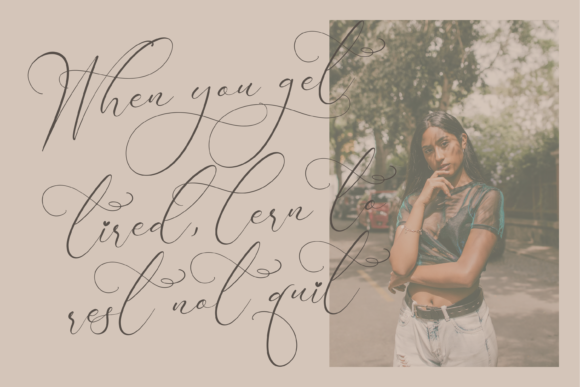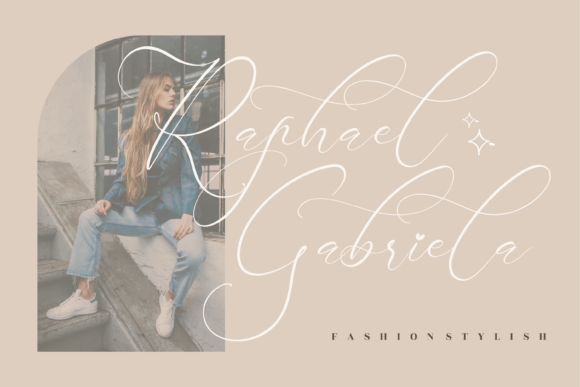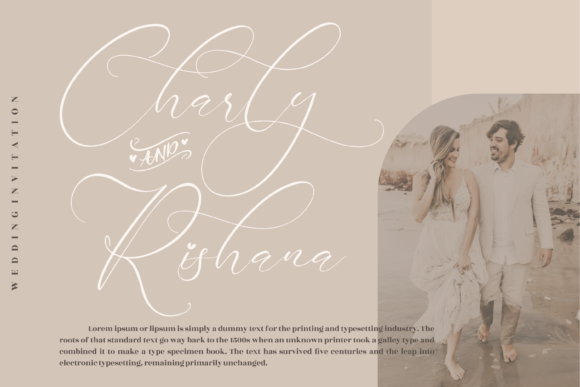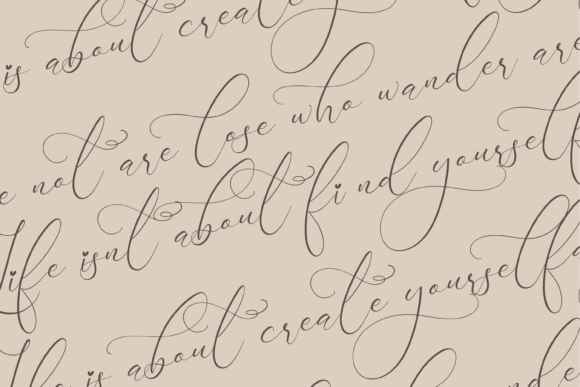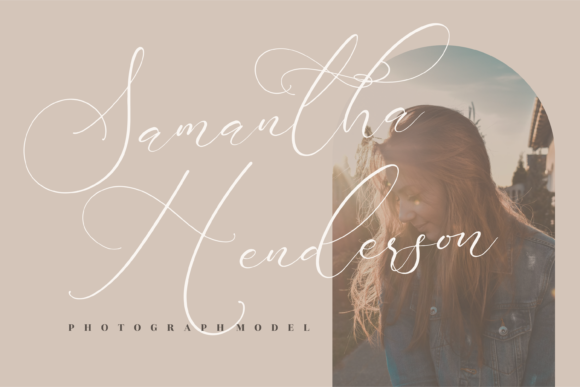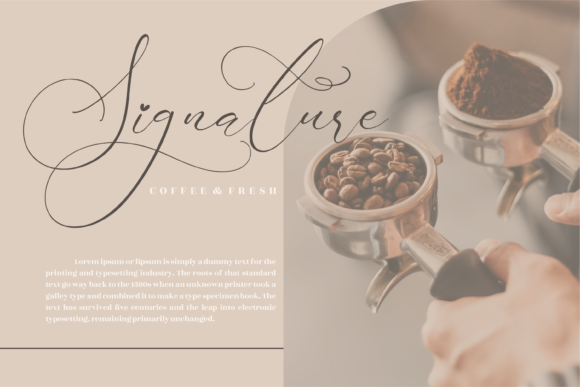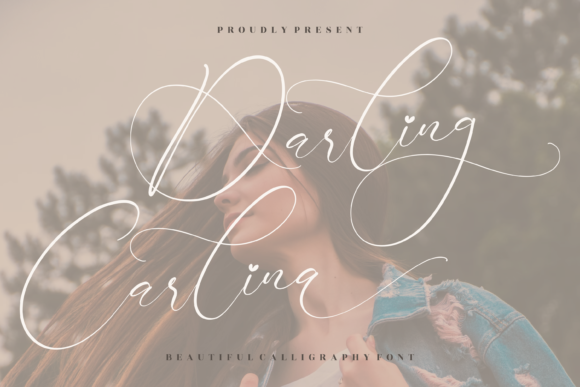
Introducing Darling Carlina Font: Elevate Your Designs with Elegant Calligraphy
Are you a designer or crafter looking for a beautiful and versatile font to elevate your projects? Look no further than Darling Carlina Font. This stunning calligraphy font is perfect for a wide range of applications, from logos and branding projects to homeware designs, product packaging, and more.
What is Darling Carlina Font?
Darling Carlina Font is a gorgeous calligraphy font that exudes elegance and sophistication. Its beautiful, flowing script is perfect for adding a touch of luxury to any project. Whether you’re working on a logo, a poster, or a product design, Darling Carlina Font is sure to make your work stand out.
What Can I Use Darling Carlina Font For?
Darling Carlina Font is incredibly versatile and can be used for a wide range of projects, including:
• Logos and branding projects: Create a lasting impression with a beautiful, custom logo that showcases your brand’s personality.
• Homeware designs: Add a touch of elegance to your home decor with Darling Carlina Font on throw pillows, wall art, and more.
• Product packaging: Make your products stand out on store shelves with eye-catching packaging that features Darling Carlina Font.
• Mugs and ceramics: Create personalized gifts or add a touch of whimsy to your everyday items.
• Quotes and posters: Make a statement with beautifully designed quotes and posters that showcase Darling Carlina Font.
• Shopping bags and t-shirts: Add a touch of style to your merchandise with Darling Carlina Font.
• Book covers and name cards: Create stunning book covers and name cards that showcase your attention to detail.
• Invitation cards and greeting cards: Make your invitations and greeting cards extra special with Darling Carlina Font.
• Labels and photography: Add a touch of elegance to your labels and photography with Darling Carlina Font.
• Watermark and special events: Use Darling Carlina Font to add a touch of sophistication to your watermarks and special event materials.
Why Choose Darling Carlina Font?
So why choose Darling Carlina Font for your next project? Here are just a few reasons:
• Elegant and sophisticated: Darling Carlina Font is the perfect choice for designers and crafters who want to add a touch of luxury to their work.
• Versatile: Darling Carlina Font can be used for a wide range of projects, from logos and branding projects to homeware designs and product packaging.
• High-quality: Darling Carlina Font is a high-quality font that is designed to produce stunning results.
Tips for Using Darling Carlina Font
Here are a few tips for using Darling Carlina Font in your projects:
• Pair with a sans-serif font: Pair Darling Carlina Font with a sans-serif font for a beautiful contrast that adds visual interest to your design.
• Use for headlines and titles: Darling Carlina Font is perfect for headlines and titles, where its elegant script can really shine.
• Experiment with colors: Darling Carlina Font looks stunning in a variety of colors, so don’t be afraid to experiment and find the perfect hue for your project.